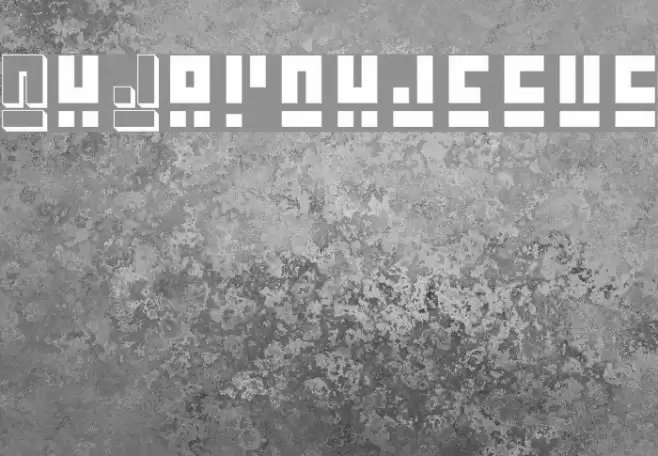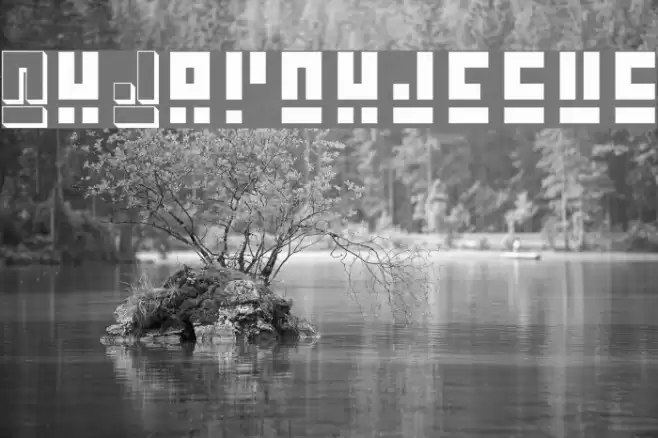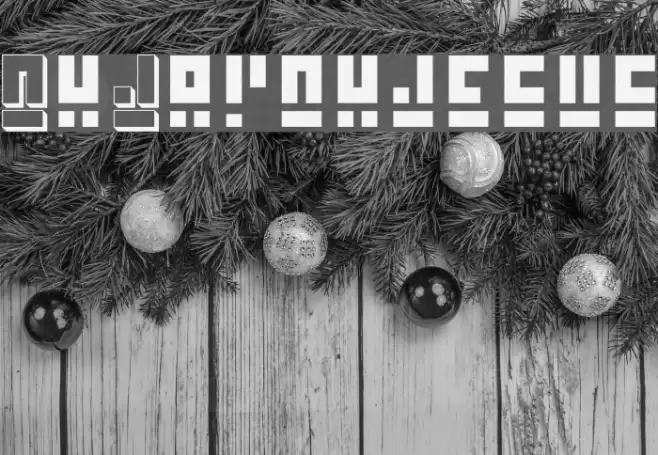
Oh Jay ohjesus Font
Oh Jay ohjesus Description
This font features a bold, geometric design with a futuristic and digital aesthetic. Each character is constructed using a series of blocky, angular shapes that create a sense of structure and uniformity. The font has a distinct, modern appearance, with both uppercase and lowercase letters sharing a similar style. The numbers and special characters are designed to match the overall theme, providing a cohesive look. The font's unique style makes it stand out, offering a visually striking option for various design projects.
A bold, geometric font with a futuristic, digital aesthetic from Uncategorized fonts.
- Proposed Projects: Ideal for tech-related branding, video game design, posters, and digital media.